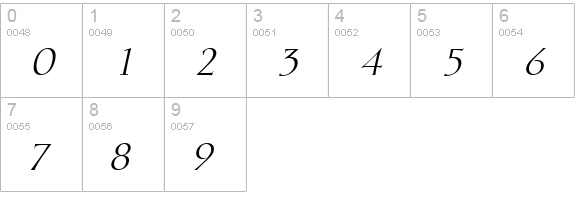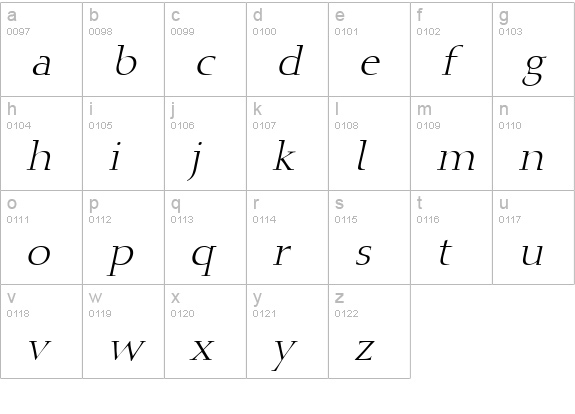
Cally 721 Italic Font Details
Cally 721 Italic is a distinctive, italic variant in the Cally typeface family \xE2\x80\x94 well suited to design and typography projects.
Cally 721 Italic font is a beautifully crafted typeface that exudes elegance and sophistication. Its sleek and stylish design makes it perfect for a wide range of design projects, from branding to invitations. The italicized letters convey a sense of movement and fluidity, adding a dynamic touch to any text. And the best part? Cally 721 Italic font is completely free! You can download this stunning font at FontsMarket.com without any cost. Don't miss out on this amazing opportunity to elevate your designs with this free and versatile typeface.